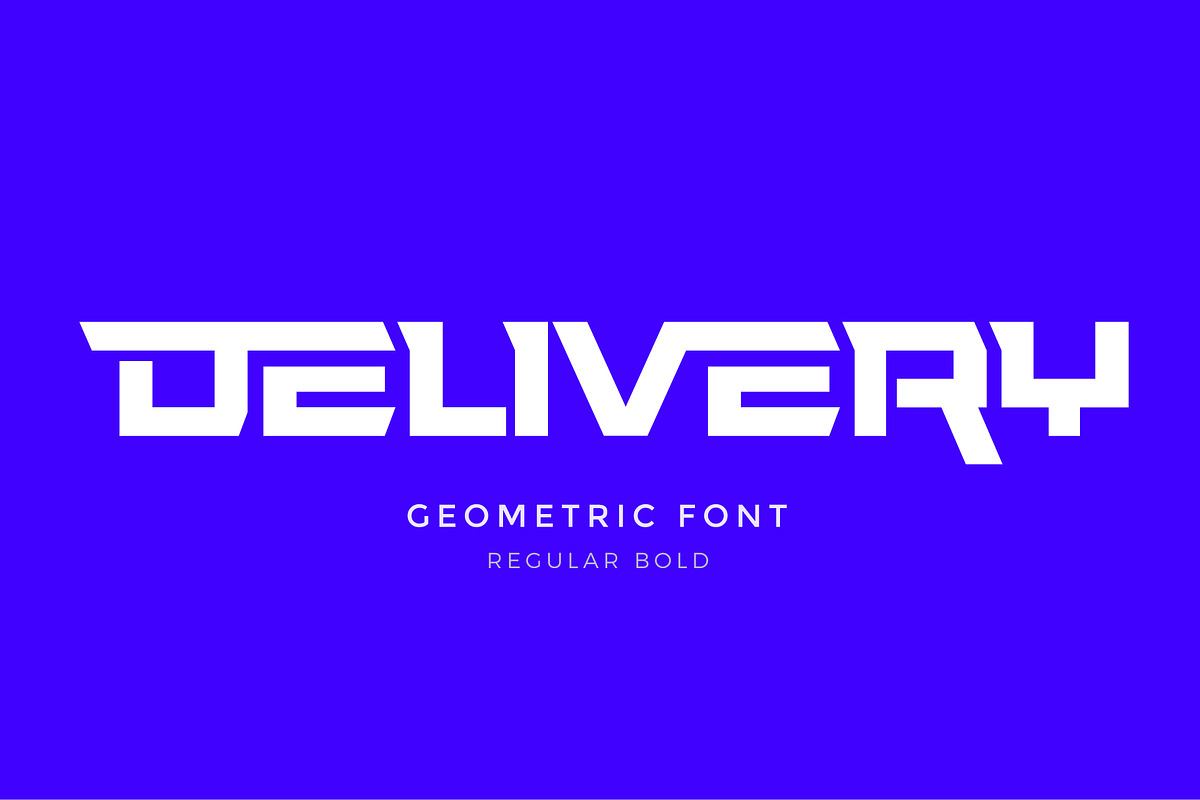
Delivery Headline Font Free Download is a bold, strong, and versatile typeface designed for impactful headlines, posters, logos, and branding. With its clean lines, geometric forms, and striking presence, this font is perfect for any project that requires a clear and commanding visual statement.
Whether you're designing for a delivery service, product packaging, tech company, or any other business that needs to make an impression, Delivery Headline stands out with its readability and modern design. It works well in large formats like billboards, web banners, and print advertisements.
The font includes uppercase and lowercase letters, numerals, punctuation, and multilingual support, making it highly adaptable for both print and digital projects.